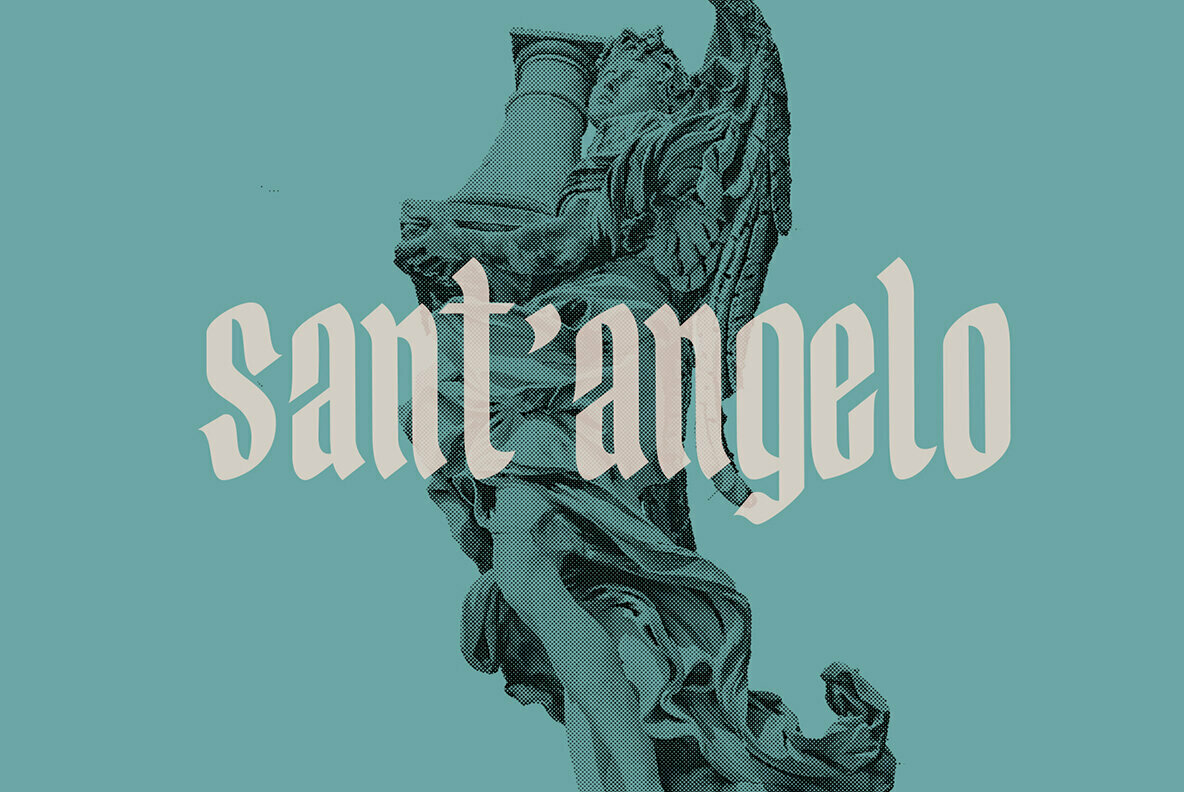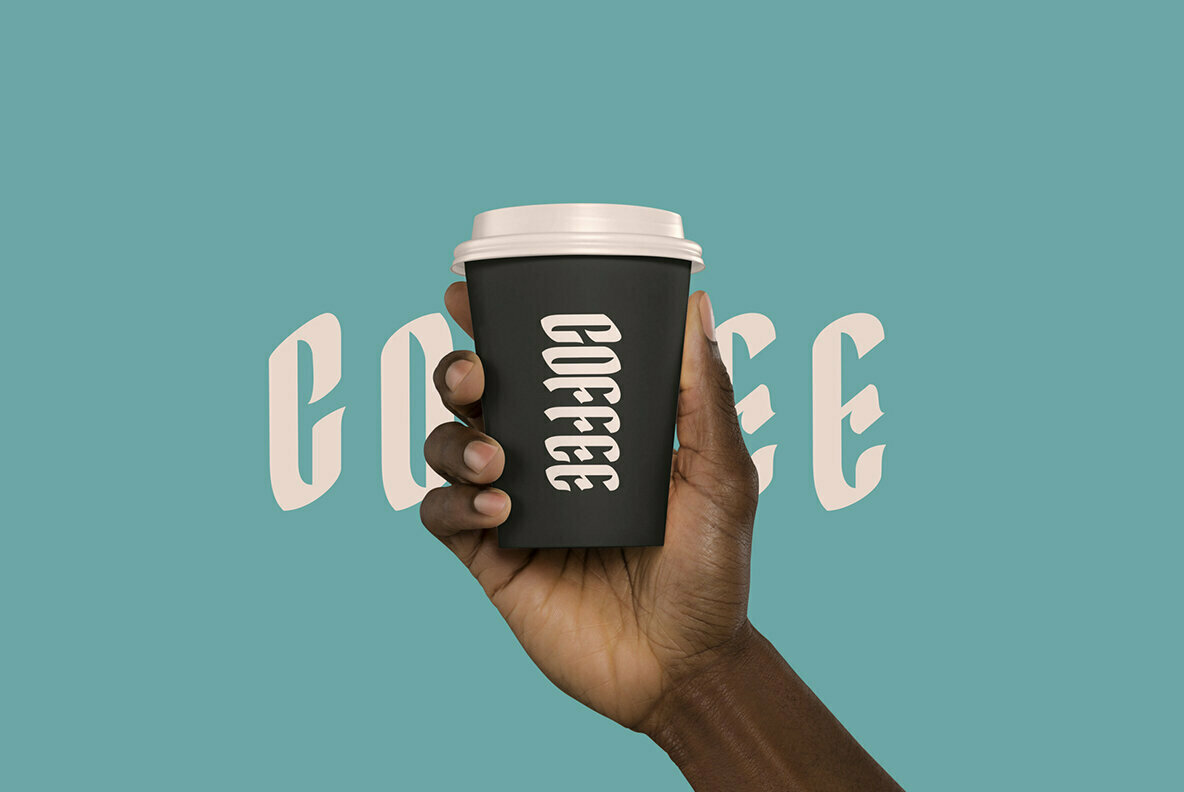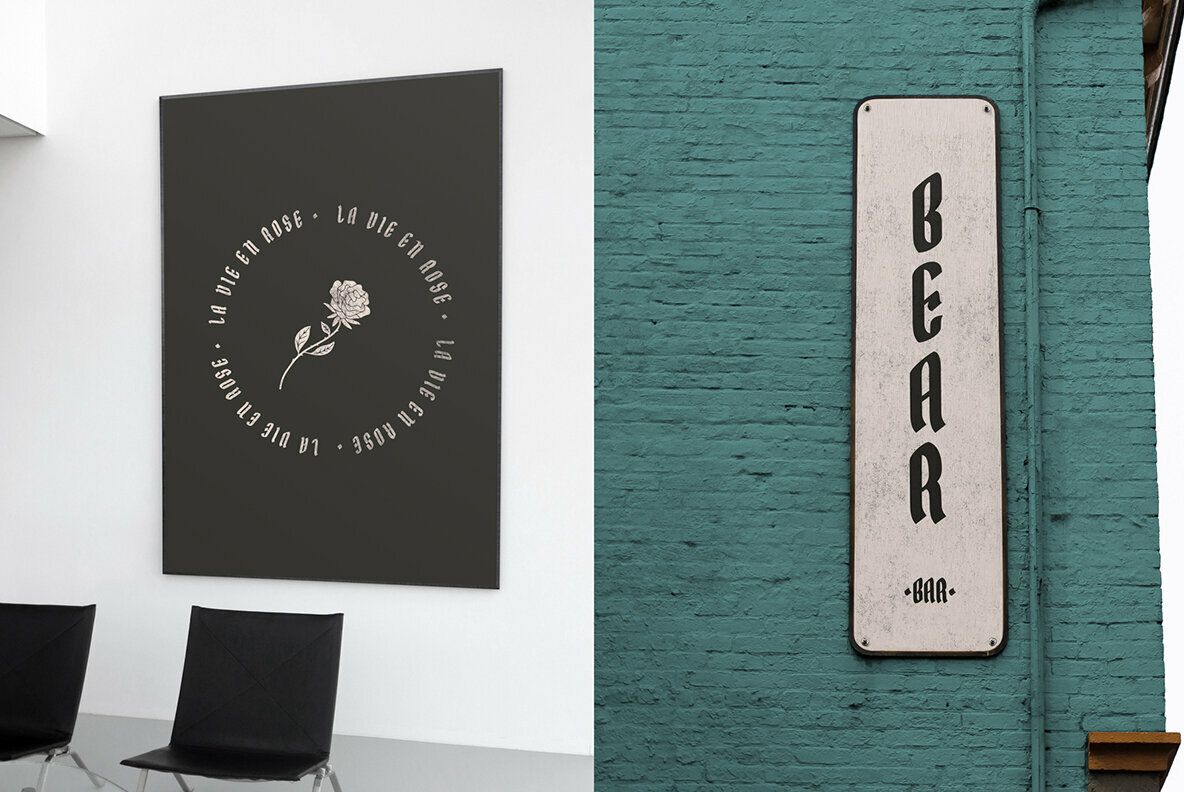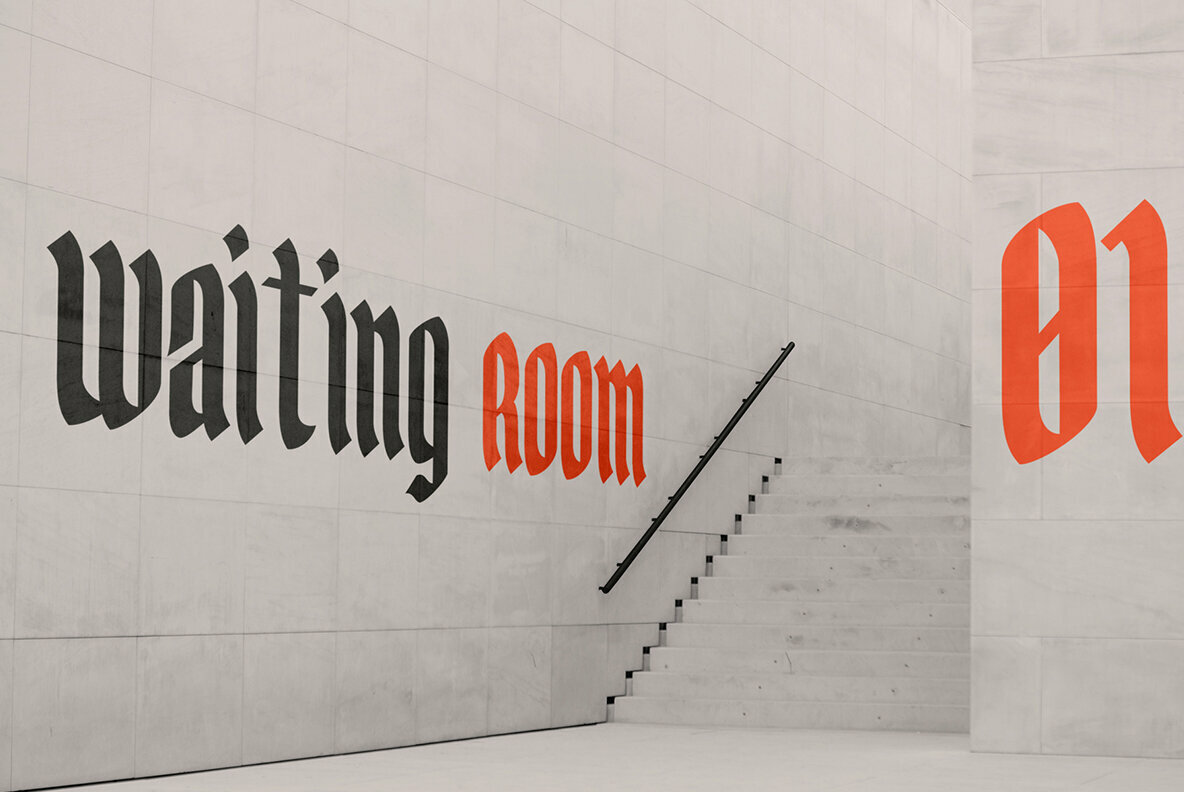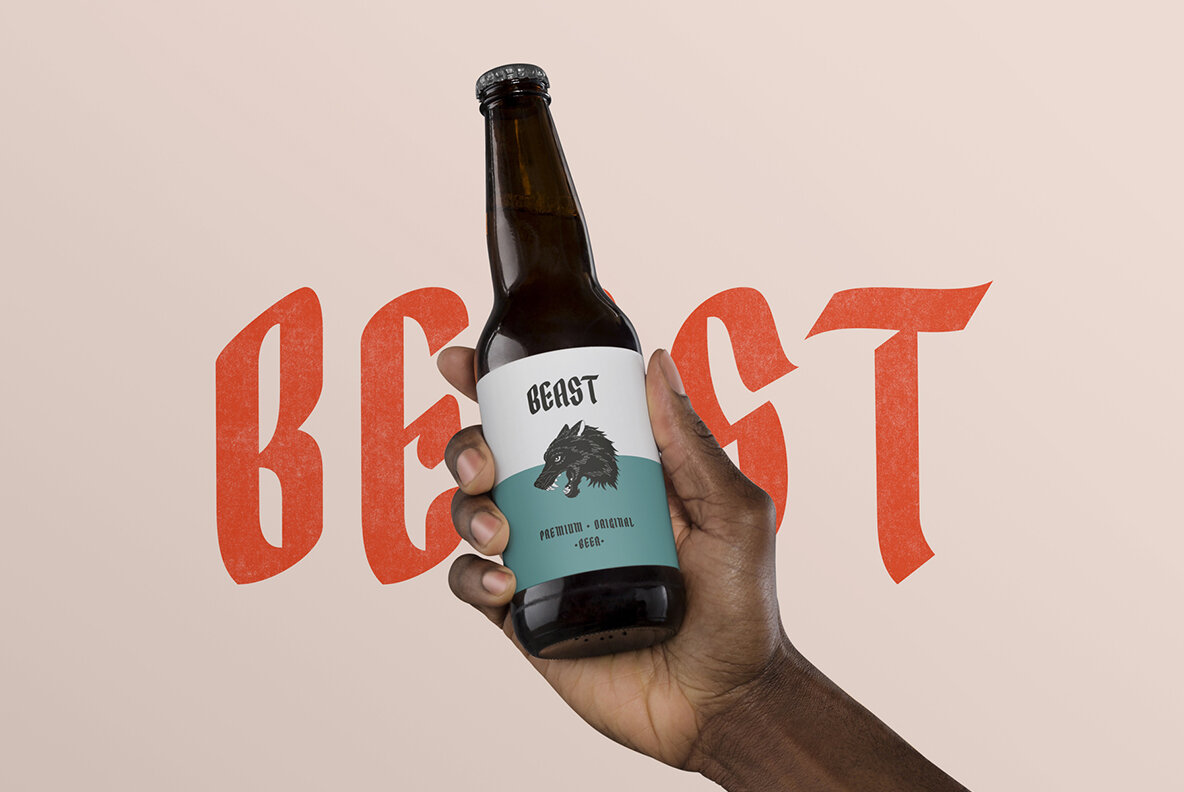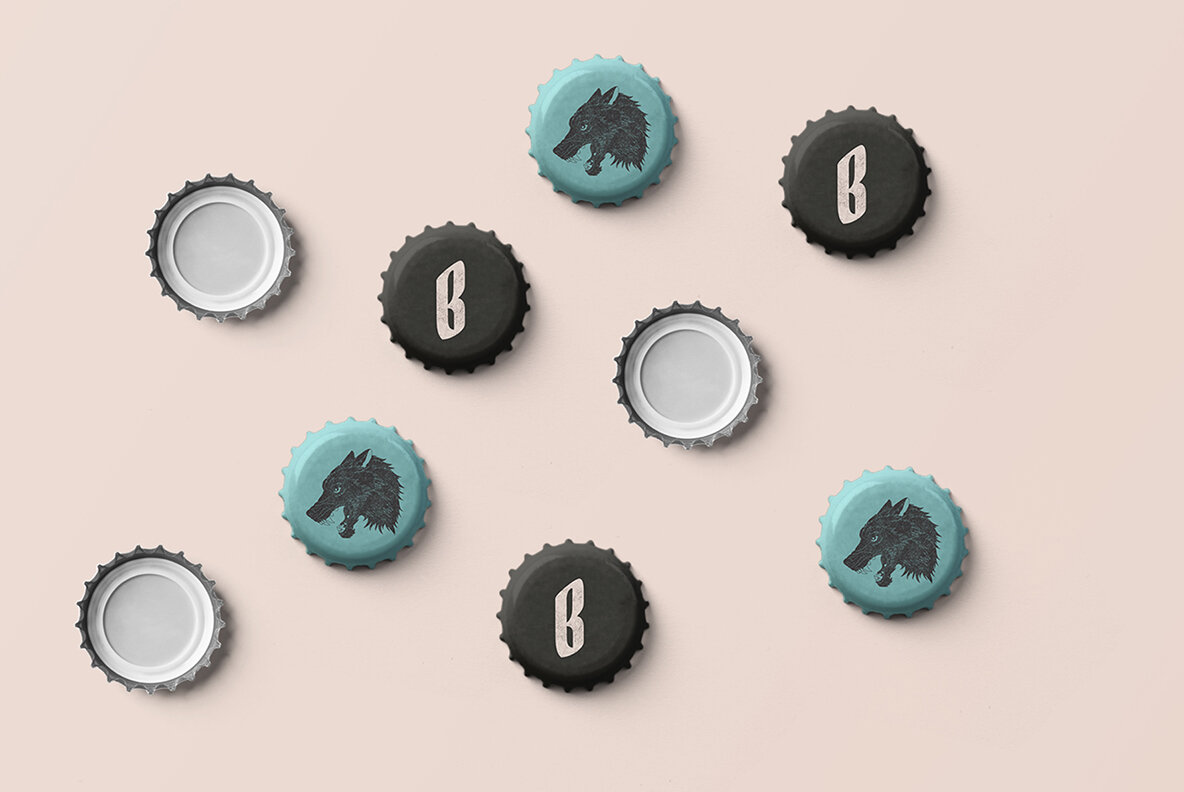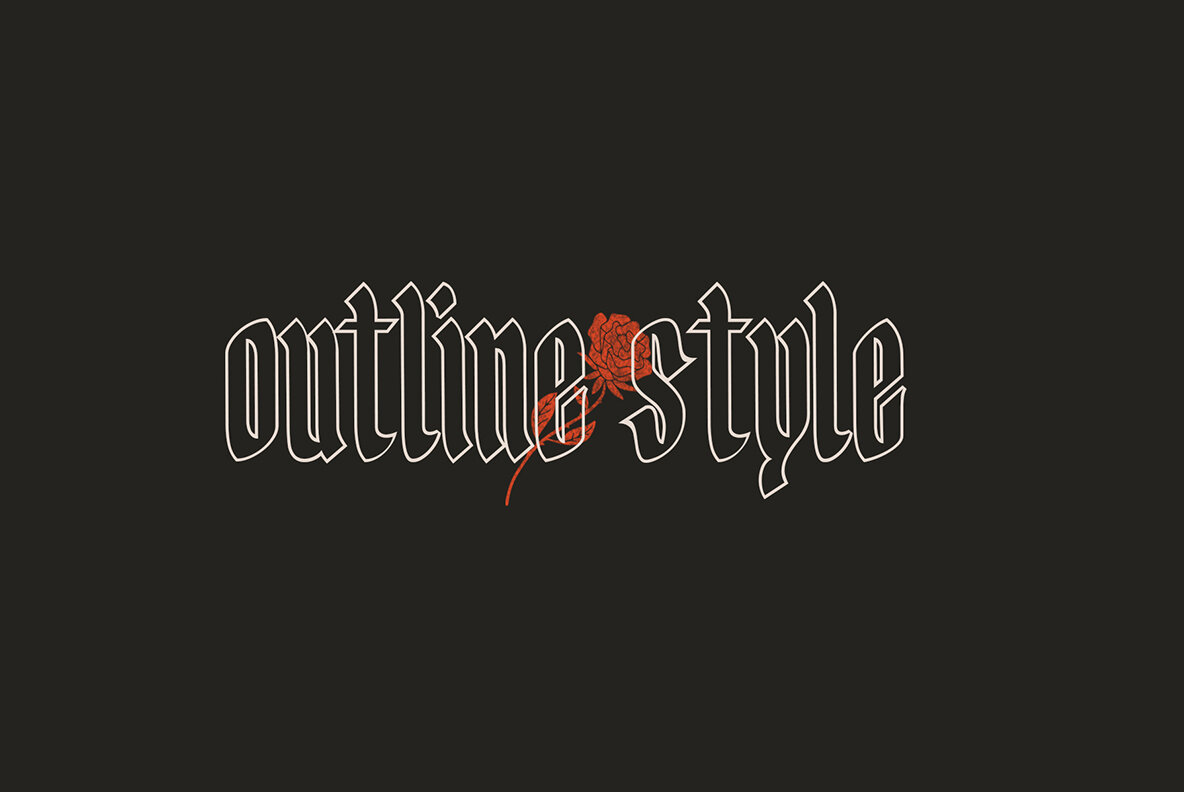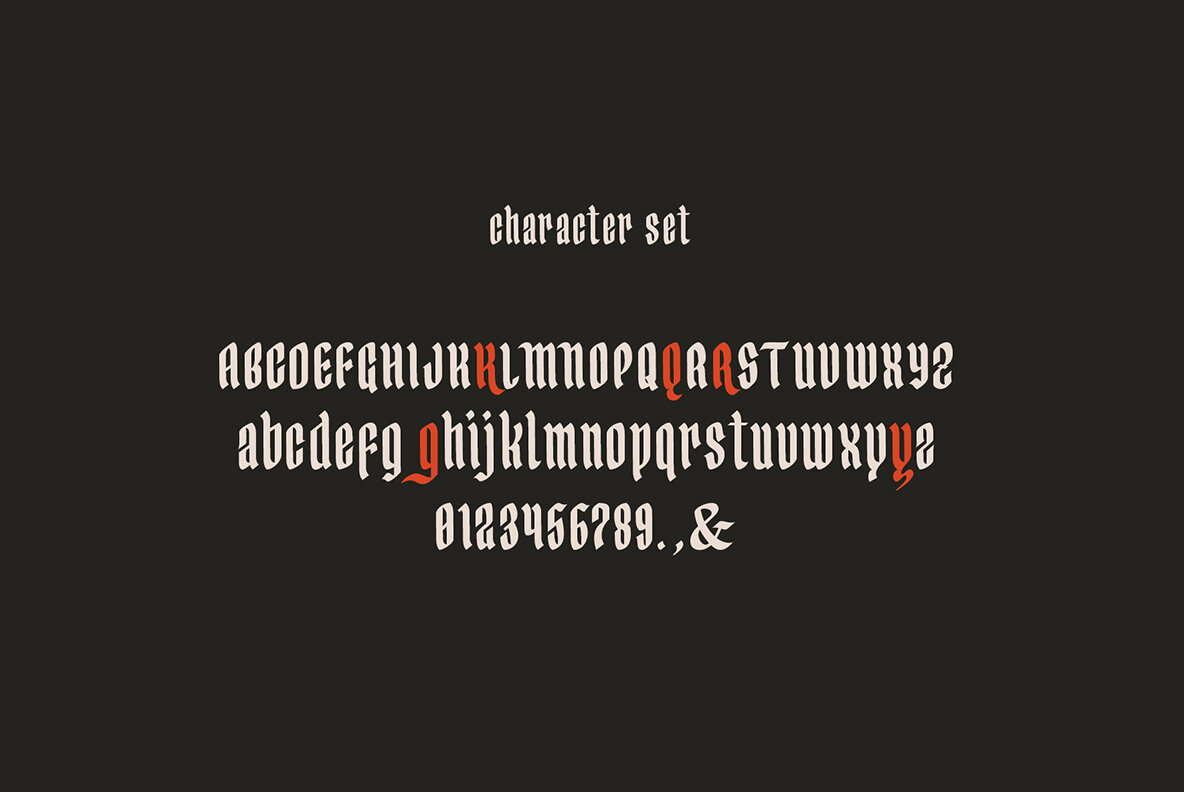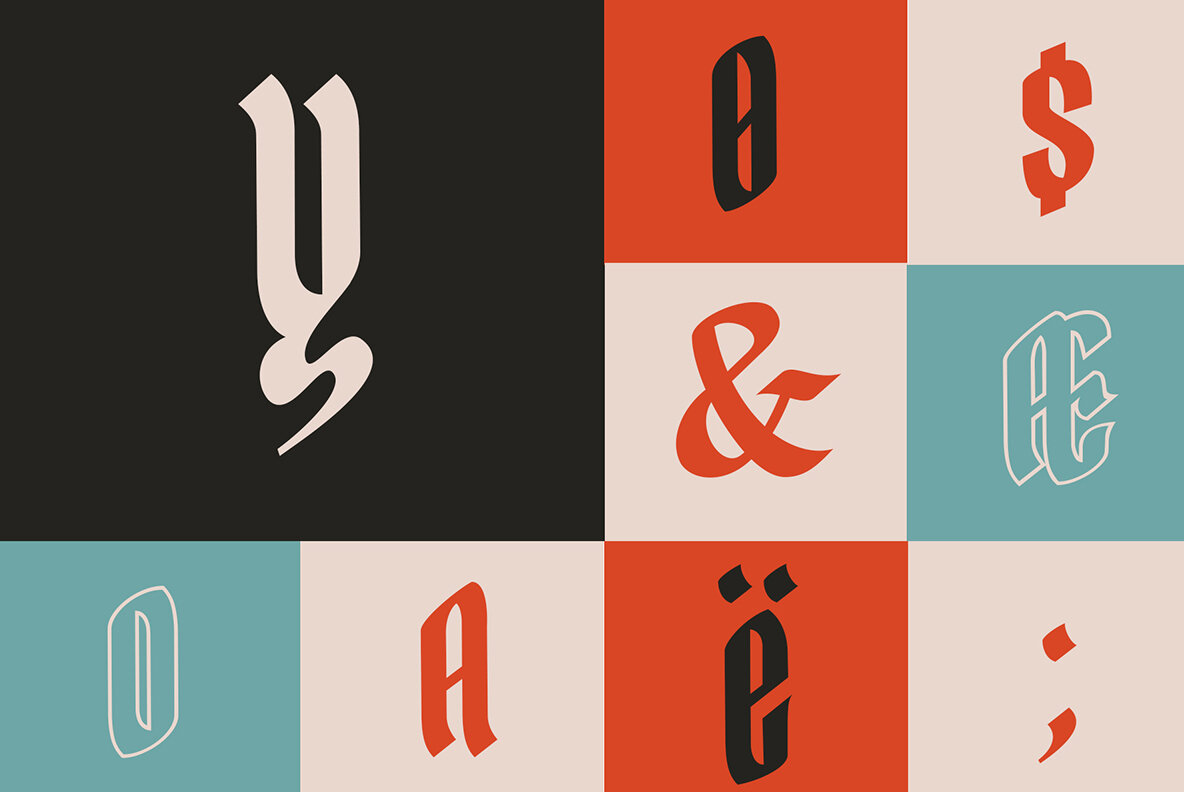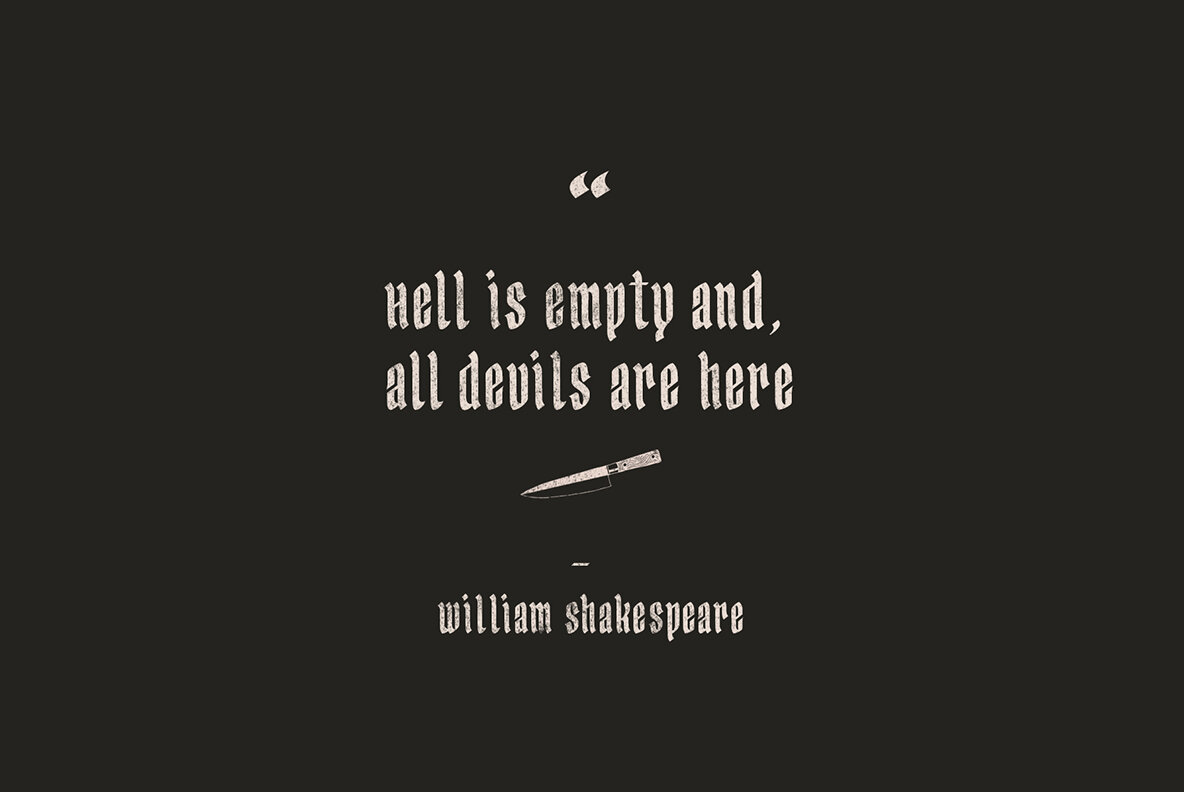
Yerington typeface is a modern and elegant blackletter font, there are 2 styles in this font namely plain and outline. This font consists of uppercase, lowercase, alternative character, ligature and multi language character. This font is suitable for graphic design needs, logo design, branding, tattoos, posters, and others.